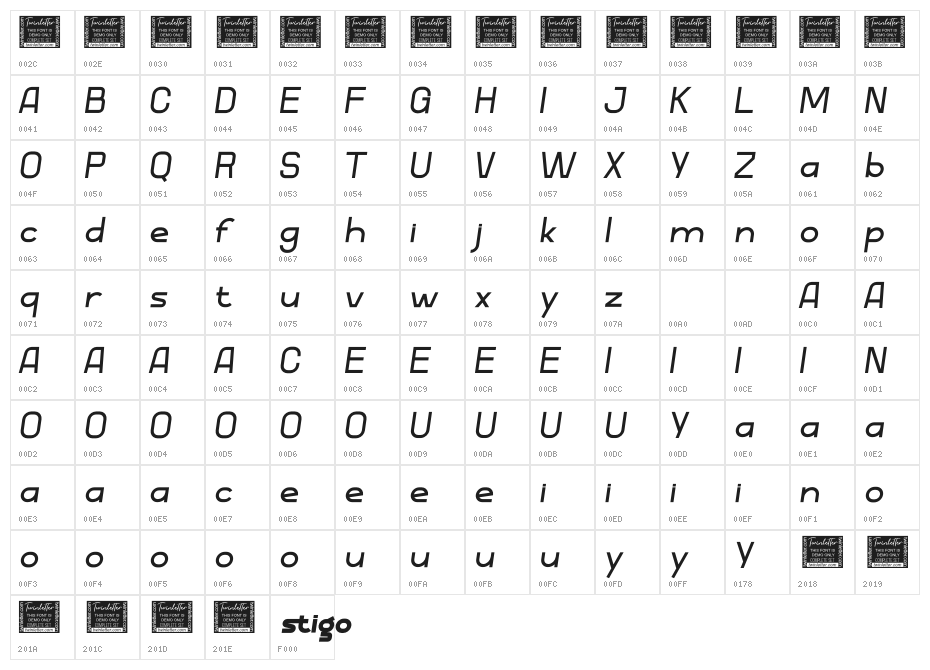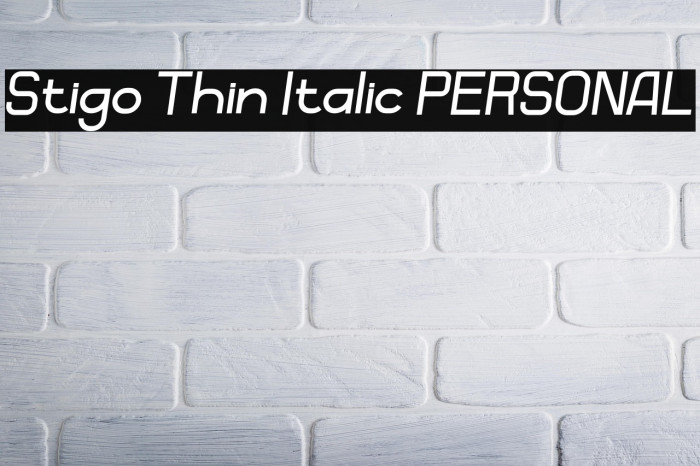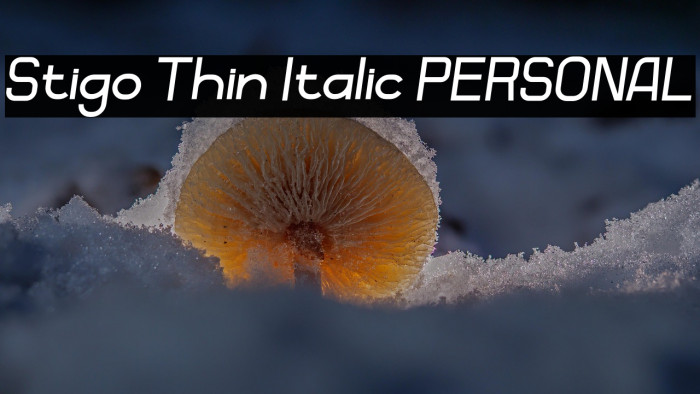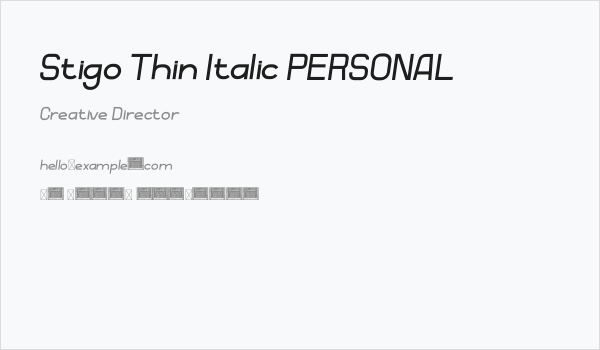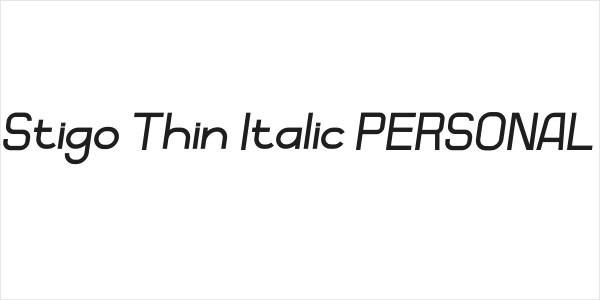
Stigo Thin Italic PERSONAL Font
Stigo Thin Italic PERSONAL Description
This font features a sleek, modern design with a thin and italicized style. The characters are slightly slanted, giving a dynamic and forward-moving appearance. The strokes are consistent and smooth, with a uniform thickness that maintains readability. The uppercase and lowercase letters are well-proportioned, and the overall design is clean and minimalistic. This font exudes a contemporary feel, making it suitable for modern design projects.
| Proposed Projects | Ideal for branding, modern web design, fashion magazines, and creative advertising. |